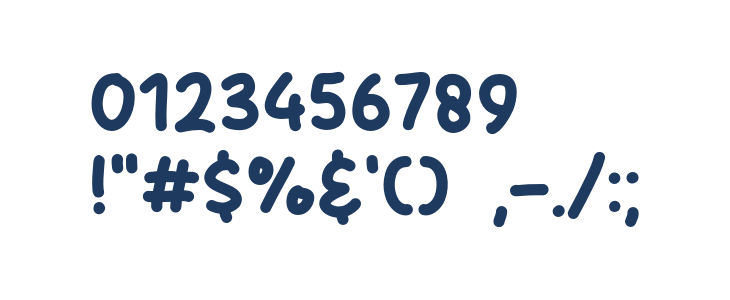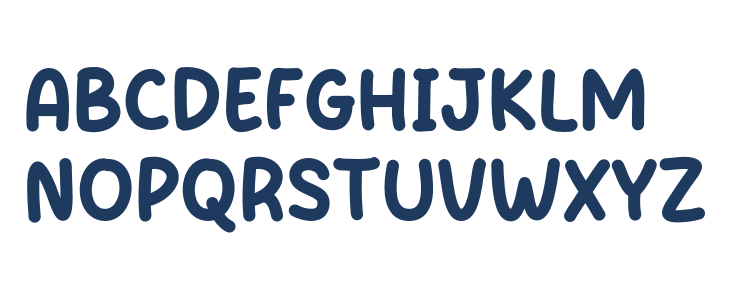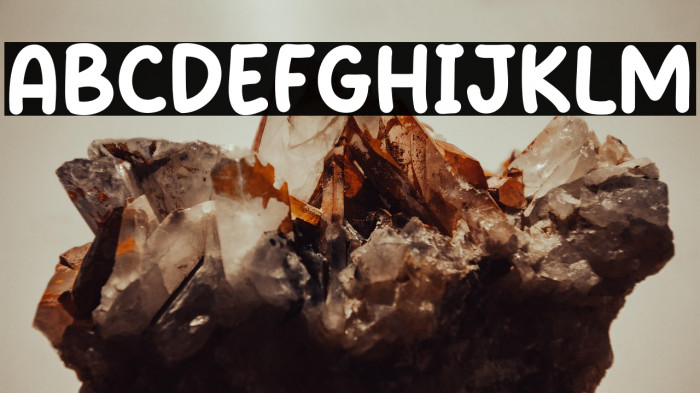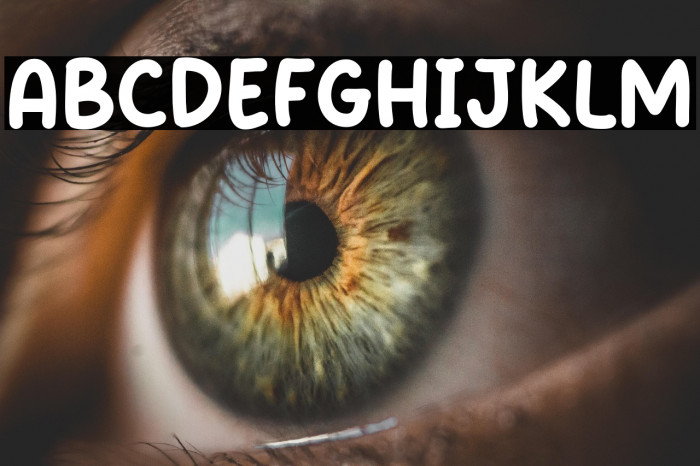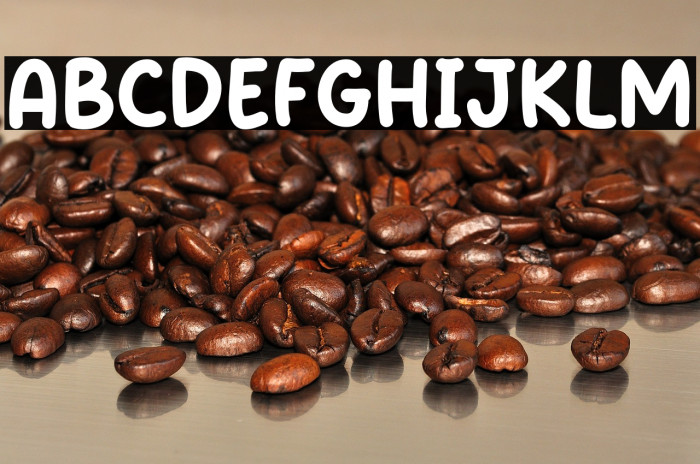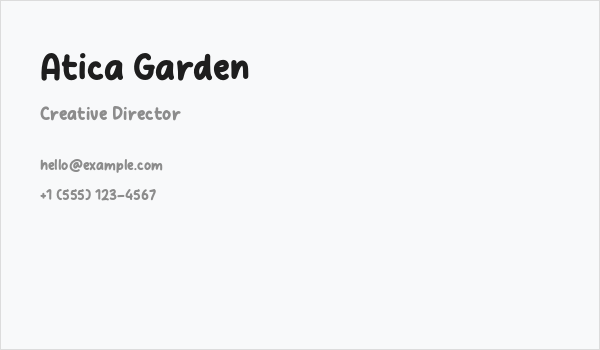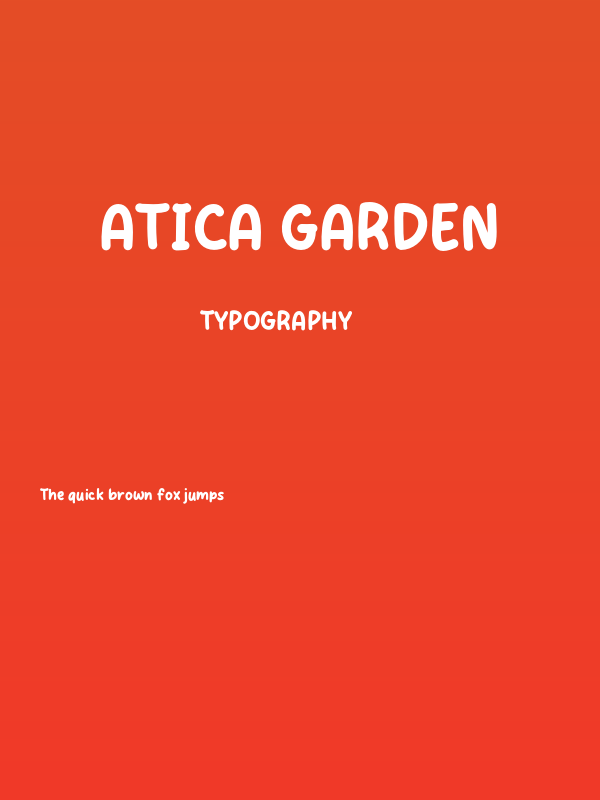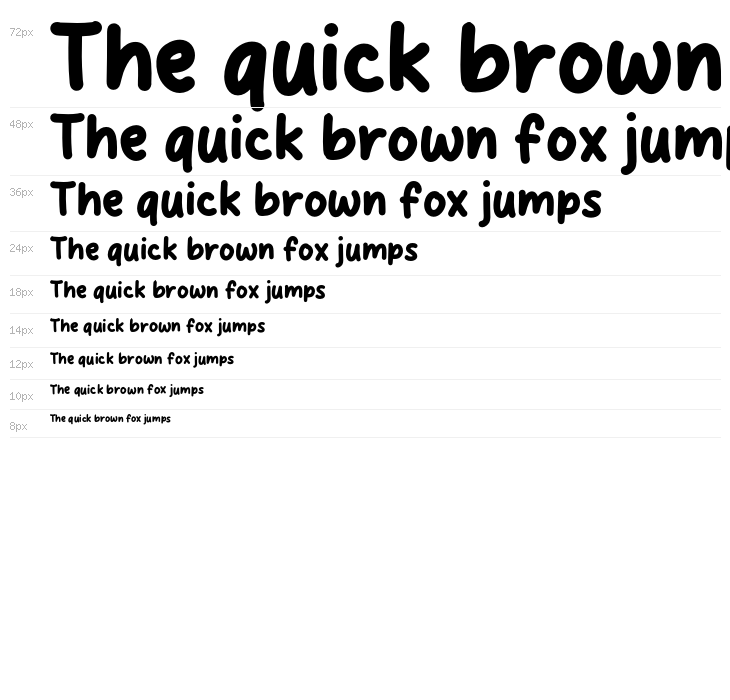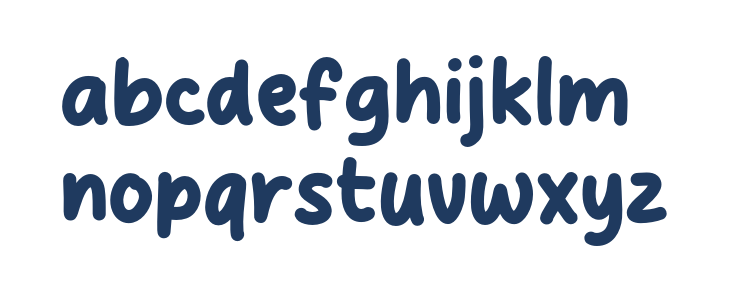
Atica Garden Font
Atica Garden Description
A rounded, playful sans-serif typeface with uniform stroke width and a handwritten, casual appearance. The characters are bold and slightly condensed, with generous spacing and a friendly, approachable style.
| Overall Style | Playful, Handwritten, Modern |
| Use Case | Headlines, Posters, Informal Branding, Children's Materials |
| Proposed Projects | ChildrenΓ’β¬β’s books, posters, educational materials, informal branding, greeting cards. |